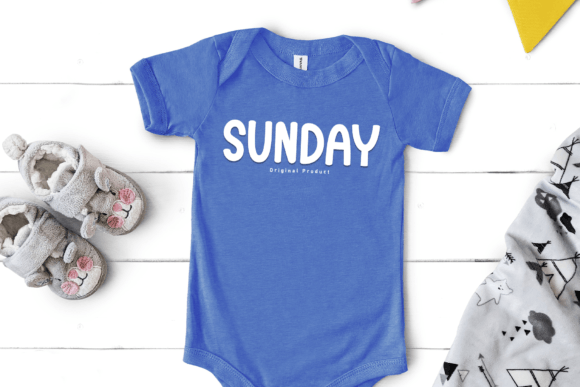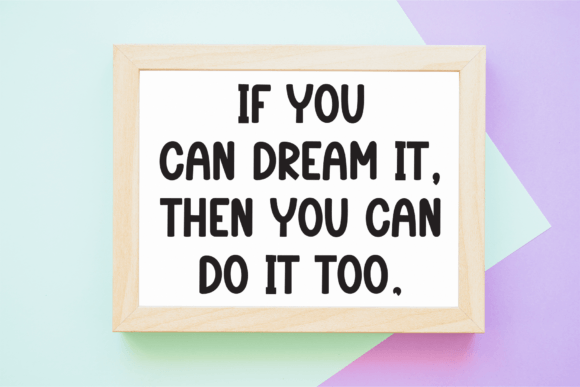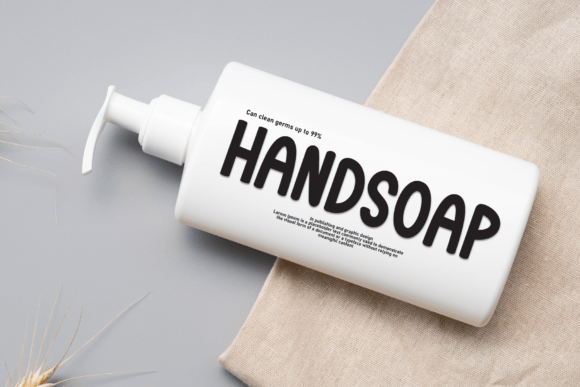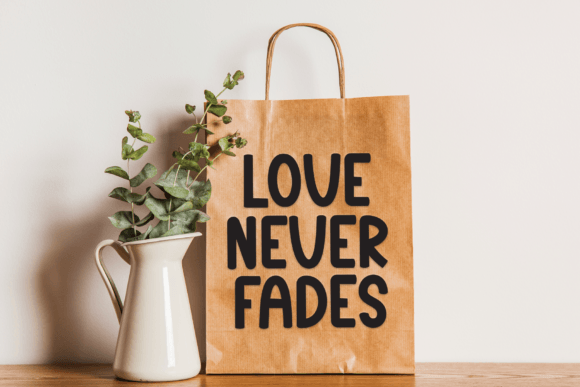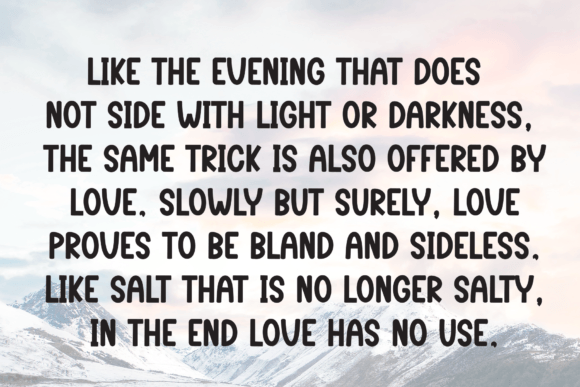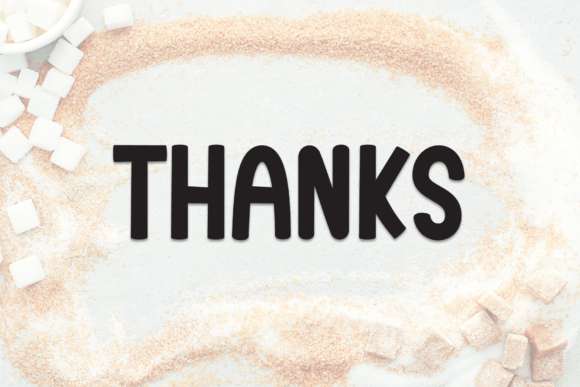
The Sweet Spot: Discovering the Charm of Brown Sugar Font
I’ll never forget the time I was working on a branding project for a new coffee shop. I had the logo concept nailed, but something was missing – the perfect font. I scoured the internet, tried out dozens of fonts, but none seemed quite right. That was until I stumbled upon Brown Sugar Font. It was like the universe had smiled upon me, and my design woes disappeared. The unique, handwritten charm of Brown Sugar instantly elevated my design, and I knew I had found the perfect match.
A Timeless Beauty: What Makes Brown Sugar Font Special
Brown Sugar is a lovely and timeless handwritten font, perfect for creating eye-catching logos, branding, and quotes. Every letter has a unique and beautiful touch, which will make your design come alive! Here are some things I love about Brown Sugar Font:
- ✨ Unique and beautiful handwriting style
- ✅ Perfect for logos, branding, and quotes
- 💫 Adds a personal touch to any design
- 🎨 Highly versatile and adaptable
While Brown Sugar Font is an amazing addition to any design project, there are a few quirks to be aware of:
- ⚠️ Some letters may appear a bit inconsistent in size, which can be adjusted with font sizes and styling
- 🤔 Limited availability of stylistic alternates, but what’s available is still incredibly useful
The Story Behind Brown Sugar Font
Brown Sugar Font was designed with love and care by a talented type designer who wanted to create a font that would add a personal touch to any design. Inspired by the warmth and coziness of handwritten letters, Brown Sugar Font was born. Today, it’s a popular choice among designers and crafters who want to add a bit of elegance and whimsy to their projects.
| Is Brown Sugar Font suitable for body text? | While Brown Sugar Font is beautiful, it’s best suited for headlines, titles, and short paragraphs. Its unique style may not be ideal for long blocks of body text. |